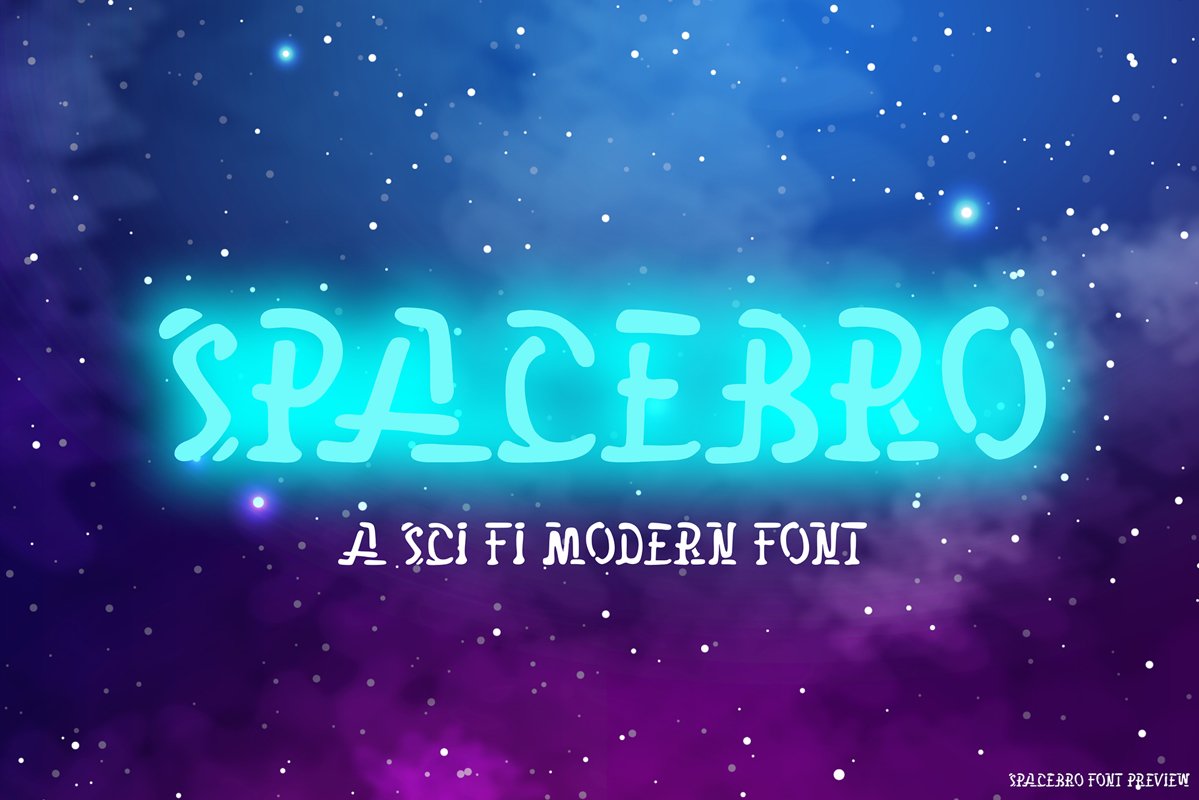
Spacebro
SpaceBro
SpaceBro is a display font with a modern look. Get inspired with its futuristic look and create stunning designs. It’s perfect for logos, magazines, social media posts, book covers, games and much more!